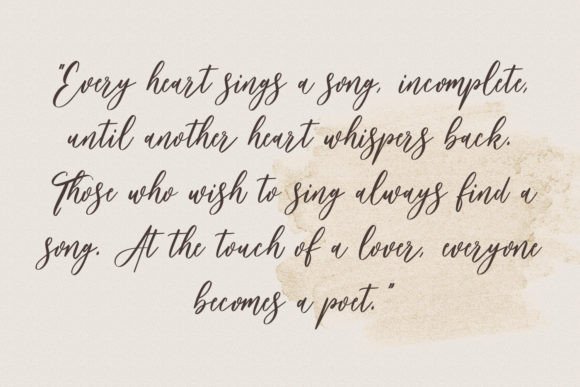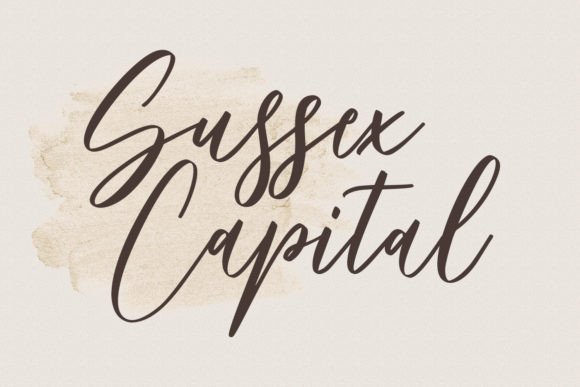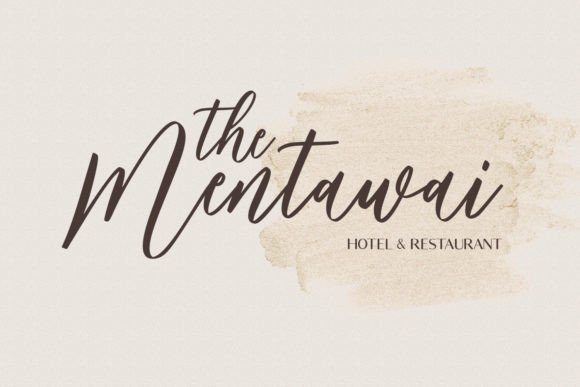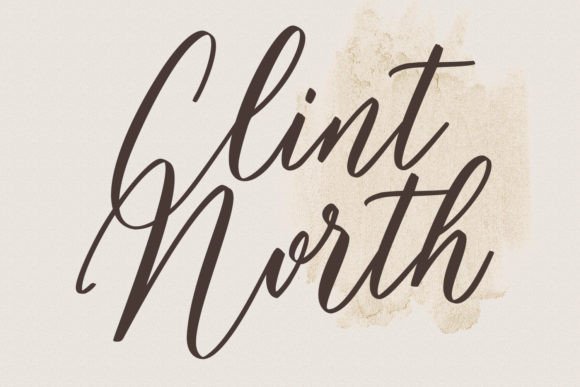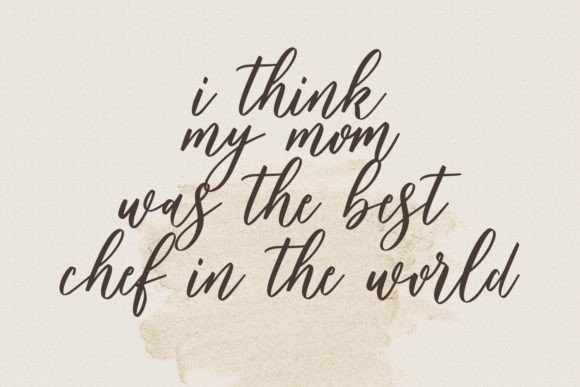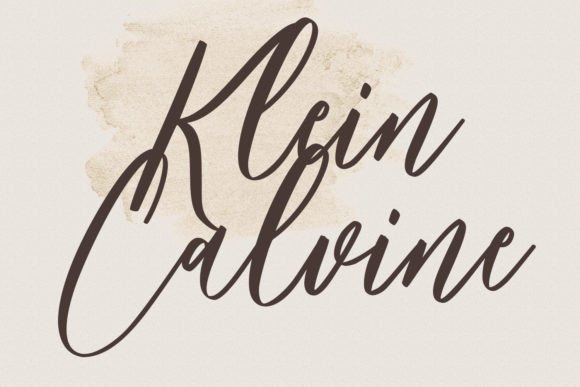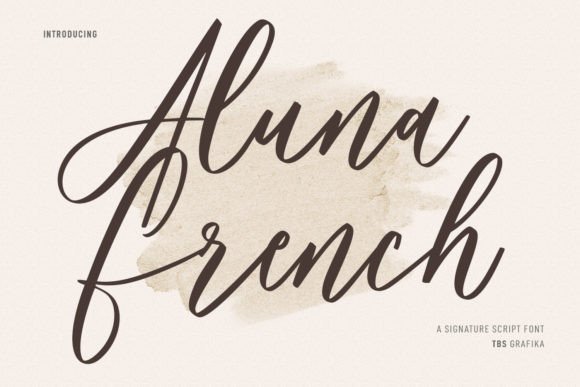
Introducing Aluna French Font: Elevate Your Designs with Elegance and Creativity
In the world of typography, a font can make all the difference in the aesthetic and appeal of a design. For designers and crafters looking to add a touch of elegance and whimsy to their projects, Aluna French Font is an excellent choice. This fancy handwritten font is designed to bring a unique character to your work, making it perfect for a variety of applications.
What Makes Aluna French Font Stand Out?
Aluna French Font boasts regular contrast strokes, giving it a distinctive and sophisticated look. The font also features fun characters with a bit of ligature and alternates, allowing for extra creative flexibility. This combination of elegance and playfulness makes Aluna French Font versatile and suitable for a range of design projects.
Whether you’re working on a logo design, social media graphics, movie titles, book titles, or even long text, Aluna French Font is an excellent choice. Its unique character and versatility make it suitable for:
• Logo Design: Create a lasting impression with a custom logo that stands out from the crowd.
• Social Media: Elevate your social media presence with eye-catching graphics and posts.
• Movie Titles: Add a touch of glamour to your movie titles and posters.
• Book Titles: Make your book titles and covers stand out on bookshelves and online.
• Short and Long Text: Use Aluna French Font for short phrases or longer passages to add a touch of elegance.
Pairing Aluna French Font with Other Fonts
One of the best features of Aluna French Font is its compatibility with other fonts. It pairs well with sans or serif fonts, making it ideal for use as a secondary text font. This versatility allows designers to create visually appealing contrast and hierarchy in their designs.
Tips for Making Stunning Work with Aluna French Font
To get the most out of Aluna French Font, consider the following tips:
• Experiment with Ligatures: Take advantage of the font’s ligature features to add a touch of sophistication to your text.
• Play with Contrast: Use Aluna French Font in combination with other fonts to create visual interest and hierarchy.
• Don’t Be Afraid to Get Creative: Aluna French Font is designed to be fun and playful, so don’t be afraid to experiment and try new things.
Aluna French Font is a unique and versatile font that can elevate your designs and add a touch of elegance and whimsy. With its regular contrast strokes, fun characters, and ligature features, it’s perfect for a range of design applications. Whether you’re a designer or crafter, Aluna French Font is an excellent choice for making stunning work. So why wait? Download Aluna French Font today and take your designs to the next level!